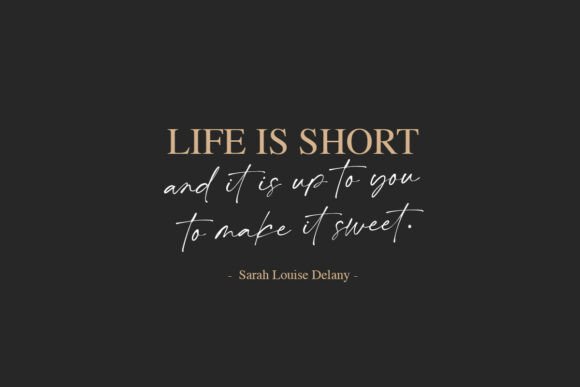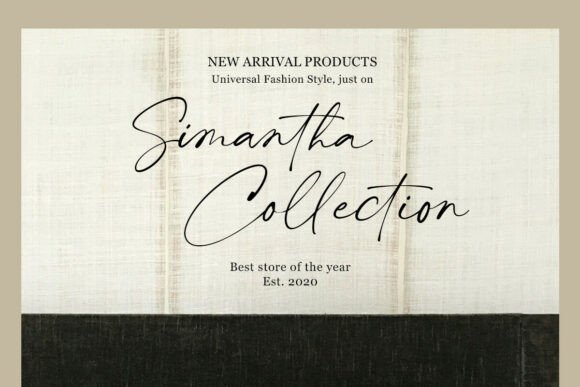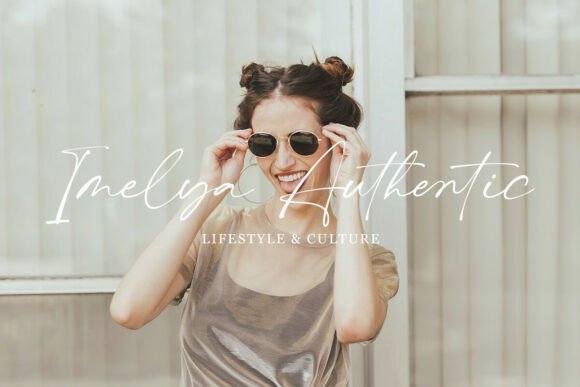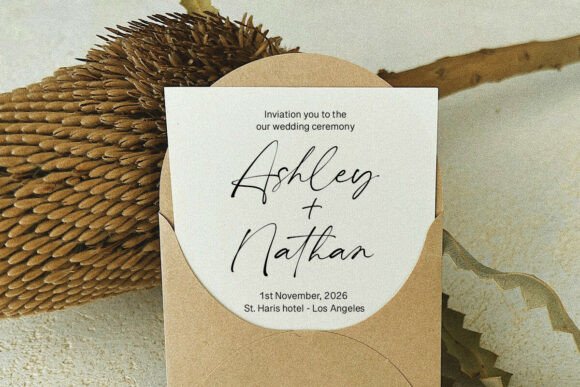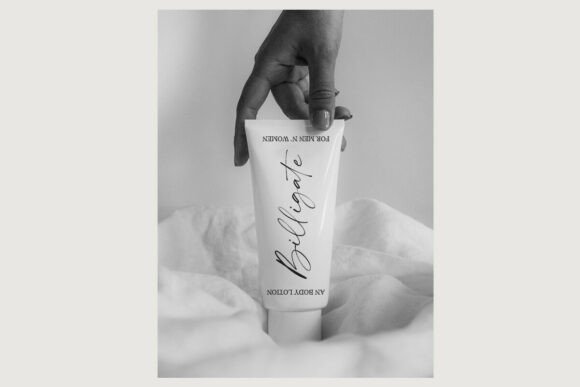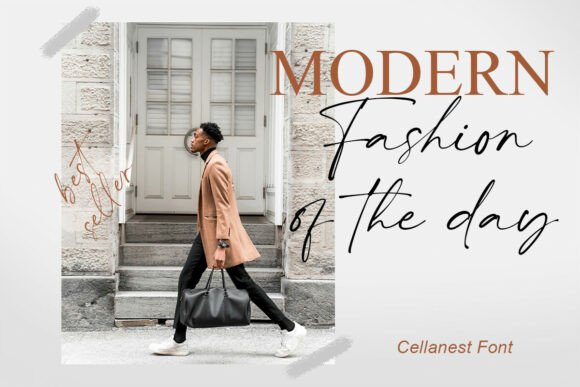
Introduction to Cellanest Font
Introducing, Cellanest Font.
✨ A classy handwritten script font that exudes timeless elegance, refined charm, and the beauty of natural handwriting Every curve and stroke is thoughtfully designed to evoke elegance, warmth, and personality, including features smooth, fluid strokes and authentic ligatures that enhance its handwritten feel.
Cellanest Font offers exceptional quality and versatility, making it a valuable addition to your design toolkit. Whether you’re creating for personal projects or commercial use, Cellanest Font delivers professional results.